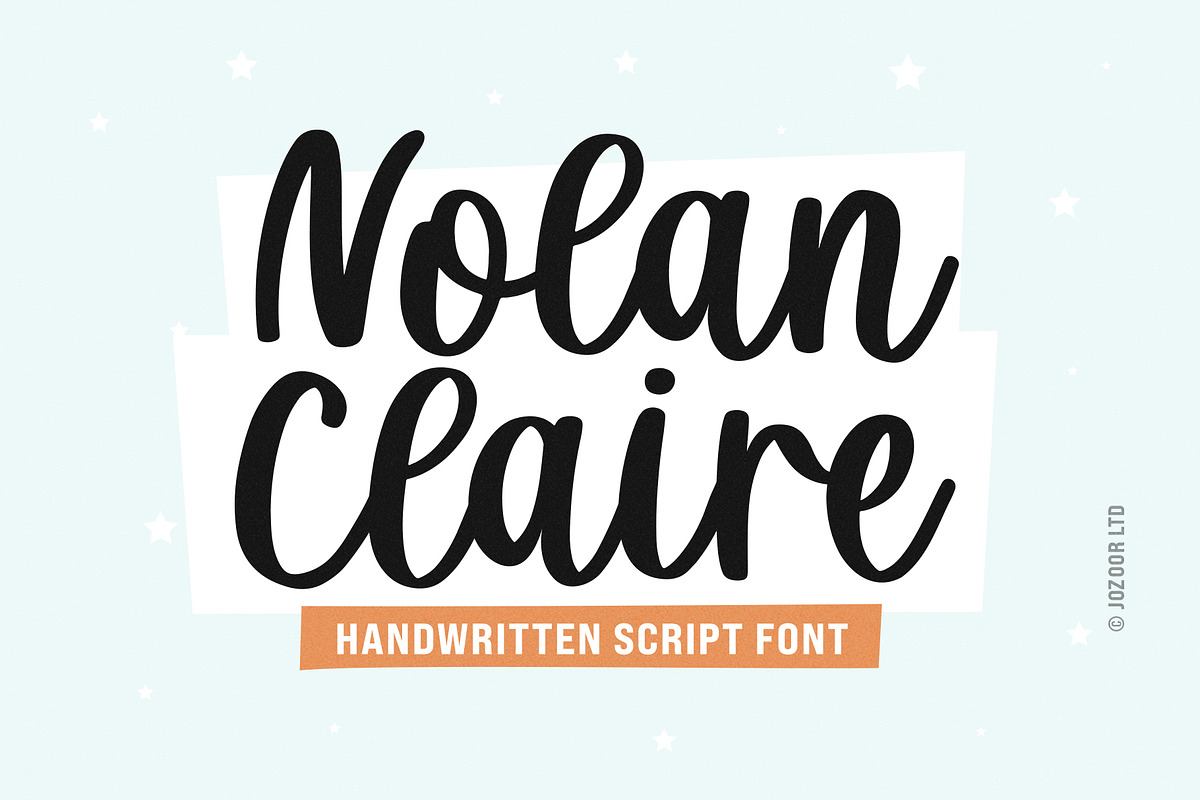
Nolan Claire - Modern Script Font Free Download
Nolan Claire - Modern Script Font Free Download is a stylish and graceful typeface that blends modern charm with handwritten elegance. Its flowing letterforms and delicate curves make it a perfect fit for branding, invitations, social media content, and signature-style logos. This font adds a personal, upscale touch to any design, whether you're going for romantic, classy, or trendy vibes.
Crafted with smooth strokes and natural ligatures, Nolan Claire - Modern Script Font Free Download offers a professional yet approachable aesthetic. It’s especially popular in the fashion, beauty, and lifestyle industries, where elegance and personality go hand-in-hand.